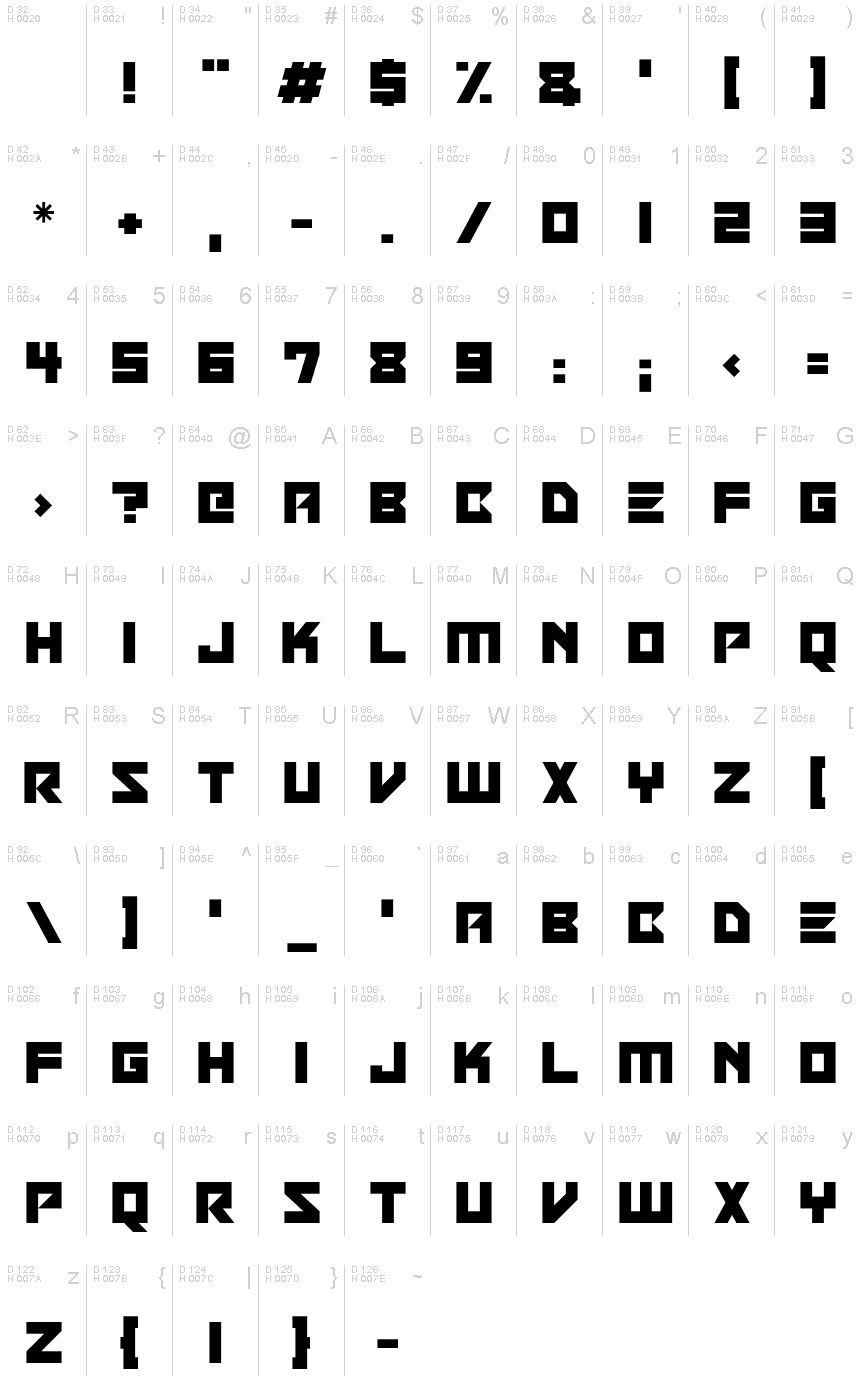
Electron Pulse
Introducing Electron Pulse, a bold and wide display font created by Darrell Flood. Its futuristic style makes it perfect for projects that require an innovative and modern touch, such as product packaging, logo design, and movie posters.